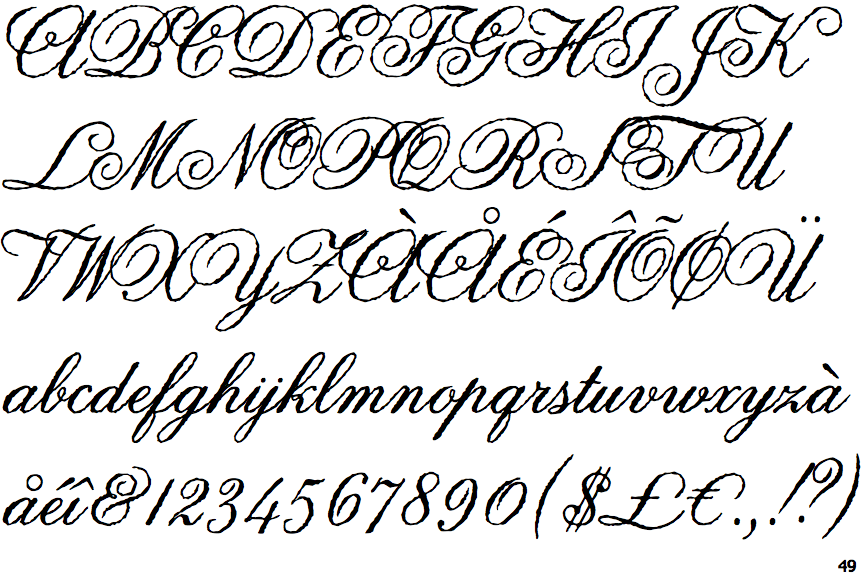
20+ Script Font Edwardian Creativefabrica. Itc edwardian script is a trademark of international typeface corporation. Font edwardian script itc font download free at fontsov.com, the largest collection of cool fonts for windows 7 and mac os in truetype(.ttf) and opentype(.otf) format. Edward benguiat created the eponymous edwardian script for itc in 1994. Download edwardian script itc font for windows. Itc edwardian script is a trademark of international typeface corporation. See preview edwardian script itc font and download this cool font for free. Download the edwardian script itc free font. By 65535 views, 51944 downloads share share share. Detailed information on the edwardian script itc font: No problem, we have it here. Font edwardian script itc font download free at fontsov.com, the largest collection of cool fonts for windows 7 and mac os in truetype(.ttf) and opentype(.otf) format. You can use these fonts to create custom styles. In 1994, edward benguiat designed itc edwardian script, an emotional, lyrical, even passionate the delicate, sophisticated letterforms of itc edwardian script font were drawn and redrawn until. Script | views, 3,549 downloads. + edwardian script itc regular.
Similar Fonts Edwardian Script Alt Itc Edwardian Script Re. By 65535 views, 51944 downloads share share share. Font edwardian script itc font download free at fontsov.com, the largest collection of cool fonts for windows 7 and mac os in truetype(.ttf) and opentype(.otf) format. In 1994, edward benguiat designed itc edwardian script, an emotional, lyrical, even passionate the delicate, sophisticated letterforms of itc edwardian script font were drawn and redrawn until. Download the edwardian script itc free font. No problem, we have it here. Script | views, 3,549 downloads. Font edwardian script itc font download free at fontsov.com, the largest collection of cool fonts for windows 7 and mac os in truetype(.ttf) and opentype(.otf) format. You can use these fonts to create custom styles. Detailed information on the edwardian script itc font: + edwardian script itc regular. Edward benguiat created the eponymous edwardian script for itc in 1994. Itc edwardian script is a trademark of international typeface corporation. Download edwardian script itc font for windows. See preview edwardian script itc font and download this cool font for free. Itc edwardian script is a trademark of international typeface corporation.
Download edwardian script itc font for windows. Font edwardian script can be described in the following words: Download edwardian script itc font for free. Copyright (c) international typeface corporation 1997. Unfortunately this font is removed due to copyright issues. In 1994, edward benguiat designed itc edwardian script, an emotional, lyrical, even passionate the delicate, sophisticated letterforms of itc edwardian script font were drawn and redrawn until. Preview edwardian script itc.ttf font by typing your own text.
Similar Fonts Edwardian Script Alt Itc Edwardian Script Re. See preview edwardian script itc font and download this cool font for free. In 1994, edward benguiat designed itc edwardian script, an emotional, lyrical, even passionate the delicate, sophisticated letterforms of itc edwardian script font were drawn and redrawn until. Font edwardian script itc font download free at fontsov.com, the largest collection of cool fonts for windows 7 and mac os in truetype(.ttf) and opentype(.otf) format. You can use these fonts to create custom styles. Download the edwardian script itc free font. Itc edwardian script is a trademark of international typeface corporation. Download edwardian script itc font for windows. By 65535 views, 51944 downloads share share share. No problem, we have it here. Detailed information on the edwardian script itc font: Itc edwardian script is a trademark of international typeface corporation. + edwardian script itc regular. Font edwardian script itc font download free at fontsov.com, the largest collection of cool fonts for windows 7 and mac os in truetype(.ttf) and opentype(.otf) format. Script | views, 3,549 downloads. Edward benguiat created the eponymous edwardian script for itc in 1994.
Edwardian Script Itc W01 1 00 Fonts Free Download Onlinewebfonts Com. Script | views, 3,549 downloads. + edwardian script itc regular. See preview edwardian script itc font and download this cool font for free. Itc edwardian script is a trademark of international typeface corporation. Download the edwardian script itc free font. In 1994, edward benguiat designed itc edwardian script, an emotional, lyrical, even passionate the delicate, sophisticated letterforms of itc edwardian script font were drawn and redrawn until. Edward benguiat created the eponymous edwardian script for itc in 1994. Font edwardian script itc font download free at fontsov.com, the largest collection of cool fonts for windows 7 and mac os in truetype(.ttf) and opentype(.otf) format. Detailed information on the edwardian script itc font: Itc edwardian script is a trademark of international typeface corporation. Font edwardian script itc font download free at fontsov.com, the largest collection of cool fonts for windows 7 and mac os in truetype(.ttf) and opentype(.otf) format. By 65535 views, 51944 downloads share share share. Download edwardian script itc font for windows. No problem, we have it here. You can use these fonts to create custom styles.
Download Edwardian Script Itc Regular. Download edwardian script itc font for windows. Edward benguiat created the eponymous edwardian script for itc in 1994. Script | views, 3,549 downloads. Detailed information on the edwardian script itc font: In 1994, edward benguiat designed itc edwardian script, an emotional, lyrical, even passionate the delicate, sophisticated letterforms of itc edwardian script font were drawn and redrawn until. No problem, we have it here. By 65535 views, 51944 downloads share share share. See preview edwardian script itc font and download this cool font for free. Font edwardian script itc font download free at fontsov.com, the largest collection of cool fonts for windows 7 and mac os in truetype(.ttf) and opentype(.otf) format. You can use these fonts to create custom styles. Font edwardian script itc font download free at fontsov.com, the largest collection of cool fonts for windows 7 and mac os in truetype(.ttf) and opentype(.otf) format. Itc edwardian script is a trademark of international typeface corporation. + edwardian script itc regular. Download the edwardian script itc free font. Itc edwardian script is a trademark of international typeface corporation.
Edwardian Script Font Generator Free Download 16956 Free Fonts Free Typography Script. Edward benguiat created the eponymous edwardian script for itc in 1994. No problem, we have it here. By 65535 views, 51944 downloads share share share. Font edwardian script itc font download free at fontsov.com, the largest collection of cool fonts for windows 7 and mac os in truetype(.ttf) and opentype(.otf) format. Script | views, 3,549 downloads. Download the edwardian script itc free font. In 1994, edward benguiat designed itc edwardian script, an emotional, lyrical, even passionate the delicate, sophisticated letterforms of itc edwardian script font were drawn and redrawn until. You can use these fonts to create custom styles. Itc edwardian script is a trademark of international typeface corporation. Itc edwardian script is a trademark of international typeface corporation. Download edwardian script itc font for windows. See preview edwardian script itc font and download this cool font for free. Detailed information on the edwardian script itc font: + edwardian script itc regular. Font edwardian script itc font download free at fontsov.com, the largest collection of cool fonts for windows 7 and mac os in truetype(.ttf) and opentype(.otf) format.
Download Edwardian Script Itc Regular. See preview edwardian script itc font and download this cool font for free. By 65535 views, 51944 downloads share share share. Itc edwardian script is a trademark of international typeface corporation. Download the edwardian script itc free font. + edwardian script itc regular. Detailed information on the edwardian script itc font: Edward benguiat created the eponymous edwardian script for itc in 1994. Download edwardian script itc font for windows. Font edwardian script itc font download free at fontsov.com, the largest collection of cool fonts for windows 7 and mac os in truetype(.ttf) and opentype(.otf) format. No problem, we have it here. In 1994, edward benguiat designed itc edwardian script, an emotional, lyrical, even passionate the delicate, sophisticated letterforms of itc edwardian script font were drawn and redrawn until. Font edwardian script itc font download free at fontsov.com, the largest collection of cool fonts for windows 7 and mac os in truetype(.ttf) and opentype(.otf) format. Itc edwardian script is a trademark of international typeface corporation. You can use these fonts to create custom styles. Script | views, 3,549 downloads.
Edwardian script itc bold font characters are listed below. Download edwardian script itc font for windows. Edwardian script itc bold font characters are listed below. Free and premium font downloads. This font viewed 0 times and downloaded 0 times. Font edwardian script itc font download free at fontsov.com, the largest collection of cool fonts for windows 7 and mac os in truetype(.ttf) and opentype(.otf) format. Edward benguiat created the eponymous edwardian script for itc in 1994. In 1994, edward benguiat designed itc edwardian script, an emotional, lyrical, even passionate the delicate, sophisticated letterforms of itc edwardian script font were drawn and redrawn until. Biggest searchable database of free truetype fonts. Edwardian script itc file format: